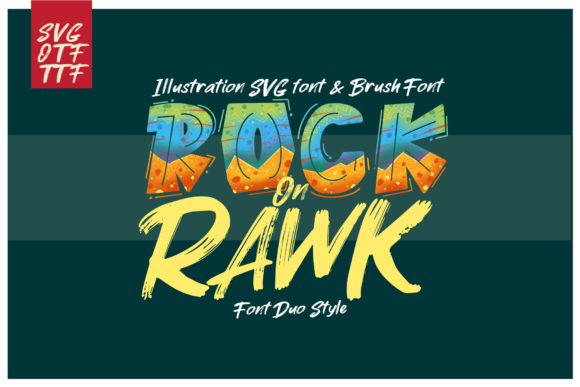
Step into a world of uninhibited creativity with Rock on Rawk, a groundbreaking display font that defies boundaries and ignites your imagination. This font is not just a collection of characters; it is an artistic masterpiece that transforms ordinary designs into stunning visual spectacles.
Journey through the realm of typographic artistry as Rock on Rawk takes you on an exhilarating ride. Its bold, charismatic strokes and striking brushed elements dance together in perfect harmony, creating a font that is both visually captivating and uniquely expressive. Unleash your inner artist and let Rock on Rawk weave its magic into your designs.
With Rock on Rawk, the possibilities are limitless. Its versatility knows no bounds, effortlessly adapting to a myriad of creative projects. Whether you're crafting eye-catching logos, designing impactful posters, or captivating social media campaigns, Rock on Rawk rises to the challenge, leaving an indelible mark on your audience.
Imagine the impact of your words when they're adorned with the raw energy and edgy charm of Rock on Rawk. Your messages will leap off the screen, demanding attention and inspiring awe. Let your designs radiate confidence and individuality as you harness the power of this extraordinary font.
So, embrace the unconventional, break the mold, and embark on a creative odyssey with Rock on Rawk. Let your designs reverberate with authenticity and raw passion as you redefine the boundaries of visual expression. Dare to be different, dare to stand out, and let Rock on Rawk propel you to typographic greatness.